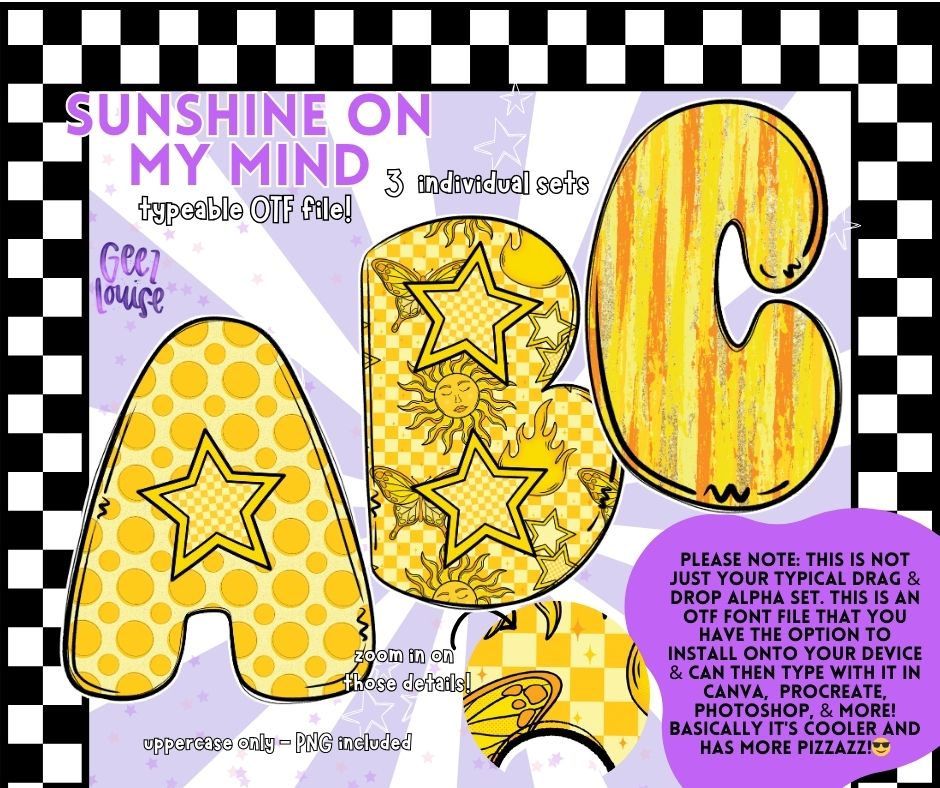
Sunshine On My Mind - Starry Summer OTF Font + PNG Alpha Set
Keep the golden vibes alive with our Sunshine On My Mind OTF Font! 🌞⭐ This bright and cheerful summer alphabet font features sun-kissed polka dots, vintage sunshine patterns, bold star designs, and warm retro stripes — perfect for sublimation projects, beach day shirts, summer event signs, and sunny home decor.
✔️ 3 bold summer font styles included (dots & stars, vintage suns & butterflies, retro stripes)
✔️ Uppercase letters only for big sunny statements
Whether you're crafting apparel, home signs, or party goodies, this sunshine and stars font will brighten everything it touches. 🌞🌻